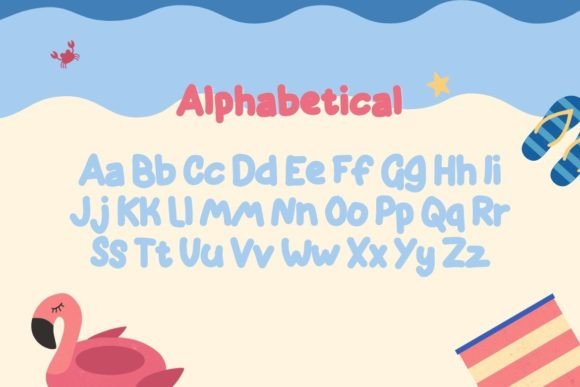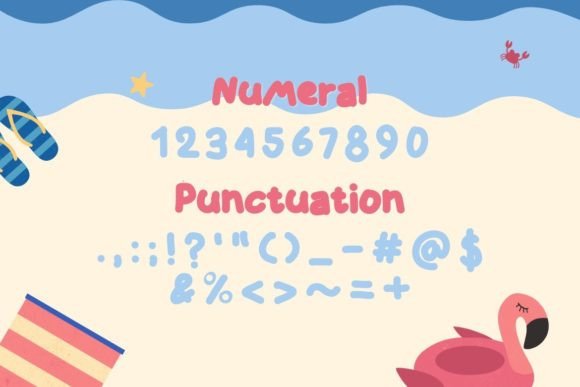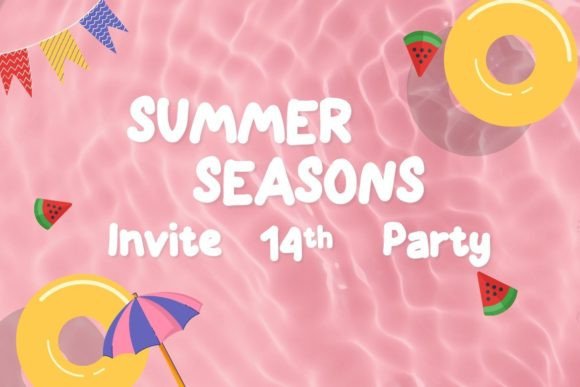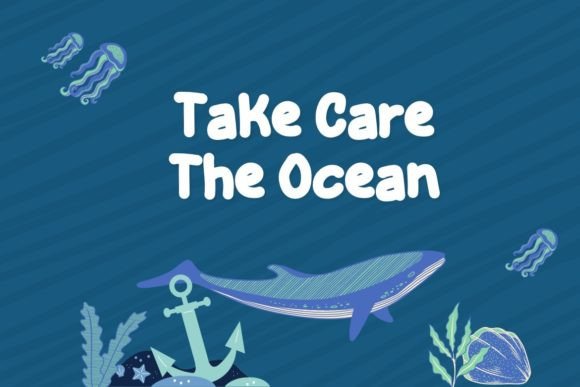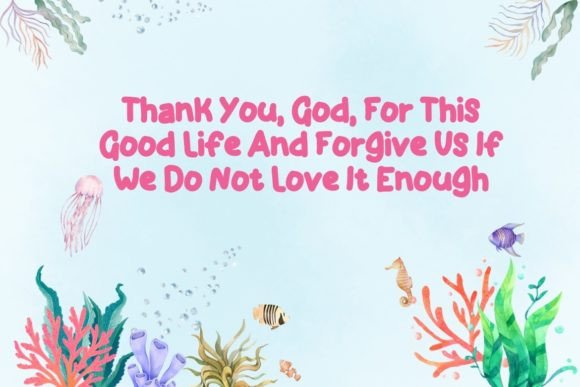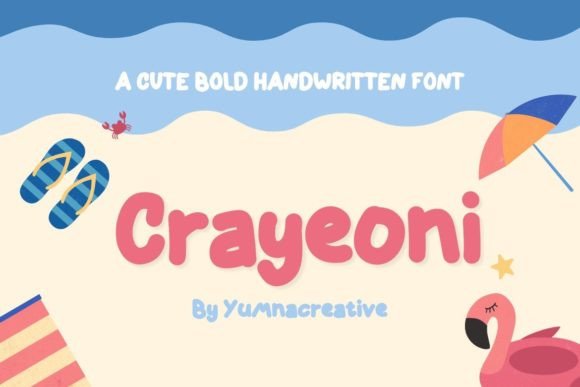
Crayeoni Font: Adding a Touch of Whimsy to Your Designs
In the world of typography, fonts play a crucial role in conveying the tone and personality of a brand or design. If you’re looking for a font that can add a dash of creativity and playfulness to your projects, look no further than Crayeoni. This attractive and unique handwritten font is designed to bring a sense of whimsy to any design, making it perfect for designers and crafters who want to add a touch of quirkiness to their work.
The Characteristics of Crayeoni Font
Crayeoni is a handwritten font that boasts uneven strokes and playful loops, giving it a delightfully organic and spontaneous feel. Its unique characteristics make it stand out from more traditional fonts, and its creative energy is sure to inspire your designs. Whether you’re working on a branding project, social media graphics, or greeting cards, Crayeoni is the perfect choice for adding a touch of personality to your work.
Perfect for Playful Branding
Branding is all about creating a unique identity for your business or product, and typography plays a crucial role in that process. Crayeoni font is perfect for playful branding projects, as it conveys a sense of creativity and spontaneity that’s sure to appeal to your target audience. Whether you’re launching a new product or rebranding an existing one, Crayeoni can help you create a memorable and engaging brand identity.
Great for Social Media Graphics
Social media is all about visual content, and graphics play a crucial role in grabbing the attention of your audience. Crayeoni font is perfect for social media graphics, as its playful and creative energy is sure to make your posts stand out. Whether you’re creating graphics for Instagram, Facebook, or Twitter, Crayeoni can help you add a touch of personality to your content and engage your audience.
Ideal for Greeting Cards and Stationery
Greeting cards and stationery are a great way to add a personal touch to your correspondence, and Crayeoni font is perfect for creating unique and eye-catching designs. Its playful loops and uneven strokes give it a delightfully handmade feel, making it ideal for creating greeting cards, invitations, and other stationery items.
Tips for Using Crayeoni Font
Here are a few tips for using Crayeoni font in your designs:
- Use it sparingly: Crayeoni font is best used sparingly, as its playful energy can be overwhelming if used excessively.
- Pair it with a neutral font: Pair Crayeoni with a neutral font to create a balanced and harmonious design.
- Experiment with colors: Crayeoni font looks great in bold, bright colors, so don’t be afraid to experiment and find the perfect color scheme for your design.
Crayeoni font is a unique and attractive handwritten font that’s perfect for designers and crafters who want to add a touch of whimsy to their designs. Its playful loops and uneven strokes convey a sense of creative spontaneity, making it ideal for playful branding, social media graphics, and greeting cards. With its wide range of uses and versatility, Crayeoni font is sure to become a favorite in your design toolkit.
Get Creative with Crayeoni Font